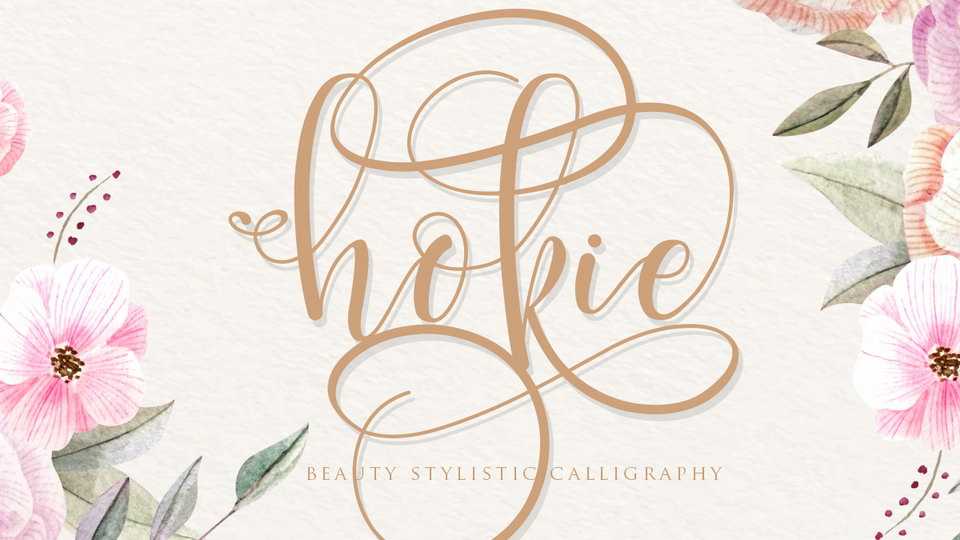
Download Hokie font, a unique, cool and beauty stylish calligraphy script. A handmade style makes Hookie perfect to use for logos, quotes, badges, labels, weddings, blog headlines or simply use it in your next design project.
Designer: Gilar Studio